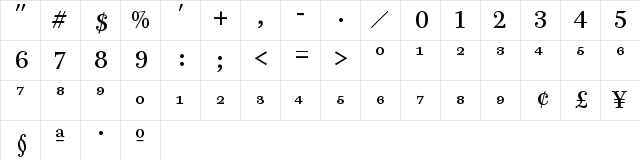
PB12TTP-RomanFrac Regular
Design Context for PB12TTP-RomanFrac Typeface
PB12TTP-RomanFrac is a composed and adaptable typeface that performs quietly and consistently across a wide range of design contexts.